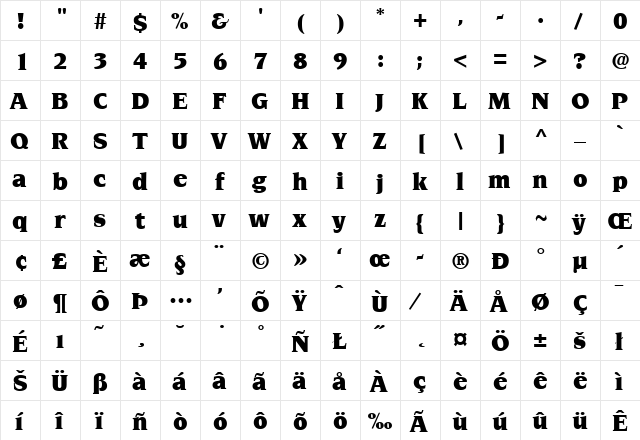
Novarese-Ultra Regular
Design Context for Novarese-Ultra Typeface
Novarese-Ultra takes a measured approach to typography — its balanced proportions and neutral character make it a reliable workhorse for both digital and print work.